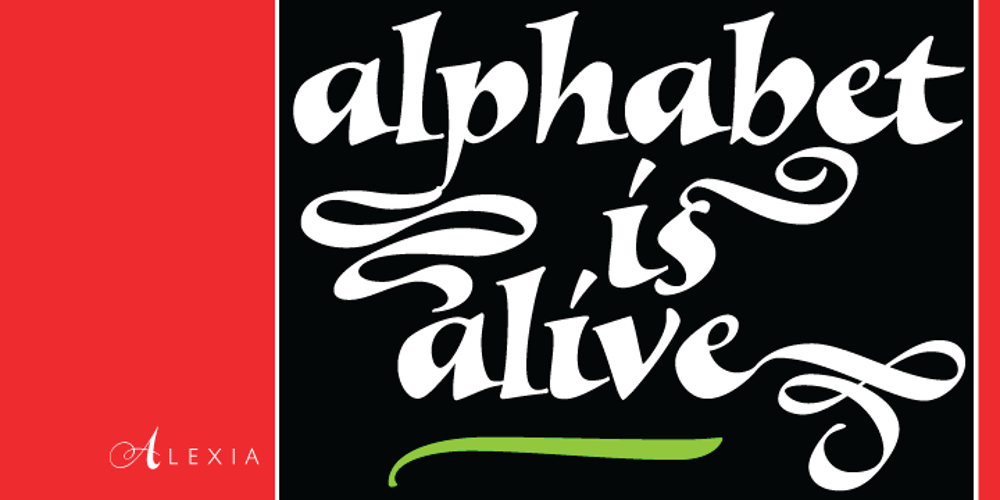
Alexia Font Family was designed by Philip Bouwsma and published by Canada Type. Alexia contains 40 styles and family package options. Philip Bouwsma is concerned about the survival of calligraphy in the computer age. The last time there was a technology shift of this magnitude, in Gutenberg’s day, the metal workers shouldered out the scribes and set their own stamp on type design, relegating calligraphy to a niche role where it still languishes. Now we are faced with another crisis, surely our last chance to integrate the classical broad pen technique into mainstream typography; but this time we have the tools to convey the subtlety of the finest calligraphy. The machine doesn’t simply make a snapshot or a still-life of the calligrapher’s expression; it has now become the tool that can inspire and help the designer with the task on hand. Bouwsma has spent the last few years developing a theory of digitizing formal historic and contemporary calligraphic styles, blending them into a seamless web like the hands themselves. His overall plan is to recreate historic calligraphy as it would have evolved if it had not been impeded by technnological limitations, wars, persecutions and human frailty. With a little imagination and an educated process with multiple tiers, a designer has in fact many ways to bring the old glory to calligraphy. One of those methods is as simple as taking one essential element of expressive calligraphy and making it mobile, detachable, attachable, or as arbitrary as the user wishes it to be. That element is simply the most sought among calligraphic font users for many years now: the flourish. Bouwsma’s idea of snap-on flourishes is not an entirely new or formerly obscure typographical concept (some typefaces boast word ending snap-ons), but on the scribe circuit it’s certainly bound to raise some eyebrows with its simplicity as a solution to inanimate calligraphy. Imagine two or three varieties on the same pen stroke, which you can attach to the a, e, g, k, or just as seamlessly to any other letter, depending on what your project requires. At about the same time Bouwsma thought of the snap-on flourishes, he was looking at his 1990s calligraphy and typefaces in the light of his newly conducted experiments. He decided that his some of his classic faces now seemed somehow incomplete, and could use a once- or twice-over. The two ideas converged, and the manifestation of this convergence is the new Alexia family in all its fresh new and versatile glory. While the original 1992 Alexia has always been a broad pen classic, this new version presents a new set of calligraphic talents that have been honed and strengthened over the past 14 years. The new Alexia is the work of an experienced scribe with enough confidence to meld the expressions of classicism and carnival calligraphy, sobriety and friendliness, craft and humor, into the same typeface. The new Alexia goes above and beyond the call of normal calligraphic fonts. The new Alexia is a 4-style calligraphic family with character sets covering more than 80 Latin-based languages, including Eastern European, Turkish, Baltic, Celtic, Esperanto, Maltese, among many many others. Snap-on flourishes come in 2 weights, to accommodate the stroke width of the Alexia fonts. These flourishes can be simply placed on typeset letters to give them an immediate swashy and ornate appearance. They can be stretched or tightened, angled or rotated, etc. Limitless instant possibilities are available for those with an imagination and a talent for making words look beautiful. Seamless borders also come in 2 weights and range in background from standard calligraphic and Celtic to South American. The border fonts can also be used to construct textures and background patterns. The original Alexia is also available as part of the family, as Alexia Classic. Finally a word from Philip Bouwsma about his massive reworking and expansion of his this classic typeface: “The original Alexia was one of my first fonts, which I digitized in 1992 closely following an alphabet written with a broad pen. A typeface is usually thought of as a fixed style, unchanging after its creation; but handwriting is a living thing which changes with the moment and grows with the individual. Alexia has grown with me into the computer era; the new version is at home in the digital universe, no longer apologetic that it is not ‘real’ calligraphy. Some of the old childlike spontaneity has been sacrificed; but I hope the exuberance of my early work will complement this more tempered version, which will always evolve.”